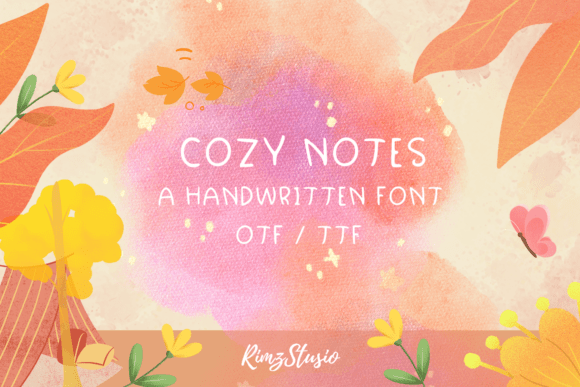
A Warm Hug on Paper: The Cozy Notes Font
Have you ever sat down with a cup of hot tea and a blank journal, ready to pour your thoughts and feelings onto the page? It’s in these quiet moments that we often find our most authentic selves, and the Cozy Notes Font captures that essence perfectly.
Cozy Notes is a beautiful handwritten font that invites you to slow down and appreciate the beauty of imperfection. With its soft, uneven strokes and natural flow, this font is perfect for creating stationery, planners, greeting cards, children’s books, and cozy-themed branding that feels truly personal. Whether you’re a designer looking to add a touch of warmth to your designs or simply someone who loves the feeling of writing by hand, the Cozy Notes Font is a valuable addition to your toolkit.
Cozy Notes Font Key Features
- Font Family: Cozy Notes is a handwritten font, designed to evoke a sense of warmth and comfort.
- Unique Characteristics: The font features a unique, handwritten style with subtle imperfections, giving it a personal touch.
Designer Review: Cozy Notes Font
Overall, I’m quite impressed with the Cozy Notes Font. It’s a lovely, modern script font that’s perfect for creating a warm and inviting atmosphere in any design project.
What works well: ✨ Beautiful handwriting-like feel that adds a touch of personality to any text ✨ Easy to read, even in smaller font sizes ✨ Perfect for creating titles, headings, and body text for a variety of design projects
Limitations: ⚠️ May not be suitable for designs that require a more formal or professional tone ⚠️ Can be a bit too playful for certain types of projects, such as financial or technical documents
I’ve found the Cozy Notes Font to be a great addition to my design arsenal. It’s a versatile font that can be used in a wide range of projects, from blog posts and social media graphics to product packaging and marketing materials.
Overall, I’m giving the Cozy Notes Font 4 out of 5 stars. It’s a great choice for designers who want to add a touch of warmth and personality to their designs, but may not be the best fit for projects that require a more formal tone.
- Font type: Script
The Cozy Notes Font is perfect for creating a warm and inviting atmosphere in your designs. Some common use cases include:
– Creating a cozy home decor brochure
– Designing a warm and welcoming website
– Making a set of printable planners or journals
– Adding a personal touch to your social media graphics
Alternatives to Cozy Notes Font for Designers
Lato is a sans-serif font designed by Łukasz Dziedzic. It is a clean and modern font suitable for a wide range of applications, from body text to headings. Use Lato when you need a clean and neutral font that won’t distract from your content.
Compared to Cozy Notes Font, Lato is more modern and lacks the handwritten feel of Cozy Notes. However, Lato’s clean lines make it a great choice for digital products and websites.
Merriweather is a classic serif font designed by Eben Sorkin. It is a elegant and sophisticated font that works well for body text and headings. Use Merriweather when you need a traditional font that adds a touch of sophistication to your design.
Compared to Cozy Notes Font, Merriweather is more formal and traditional. While Cozy Notes has a handwritten feel, Merriweather has a classic, printed look.
Montserrat is a sans-serif font designed by Julieta Ulanovsky. It is a modern and urban font that works well for headings and body text. Use Montserrat when you need a font that evokes the energy and excitement of city life.
Compared to Cozy Notes Font, Montserrat is more modern and urban. While Cozy Notes has a warm and inviting feel, Montserrat is edgy and bold.
Yes, Cozy Notes is optimized for digital use and is suitable for e-books, mobile apps, and websites. Its compact design and high legibility make it an excellent choice for on-screen reading.